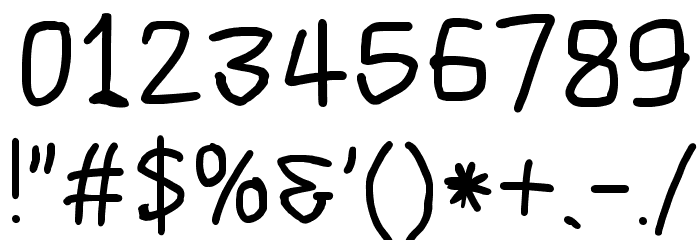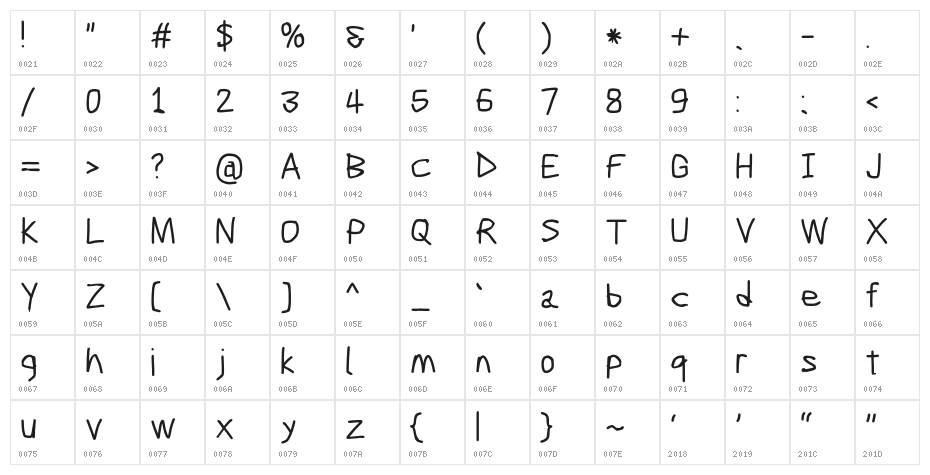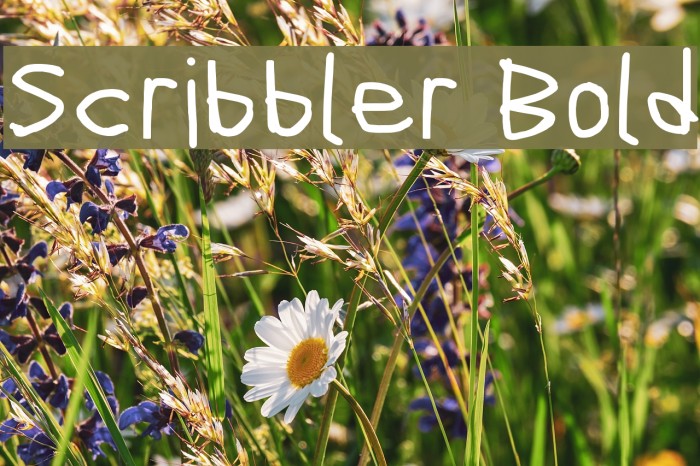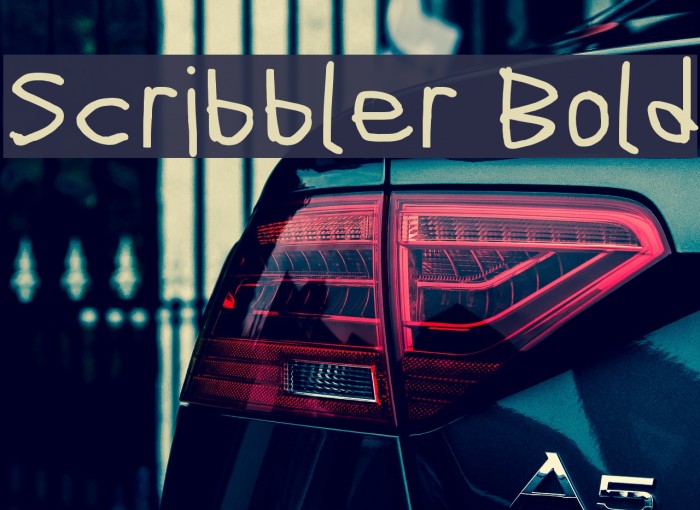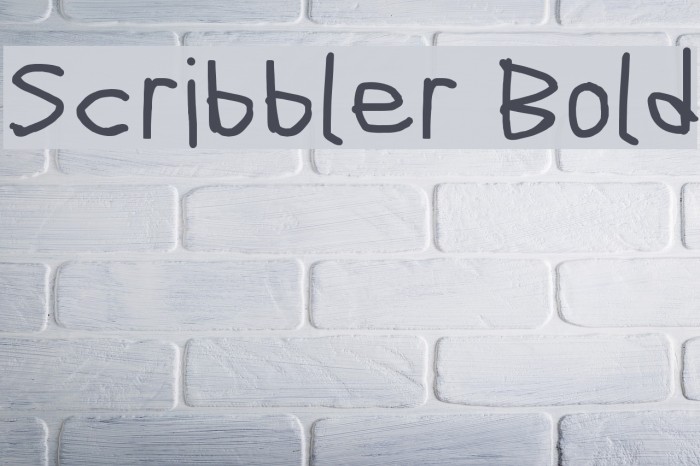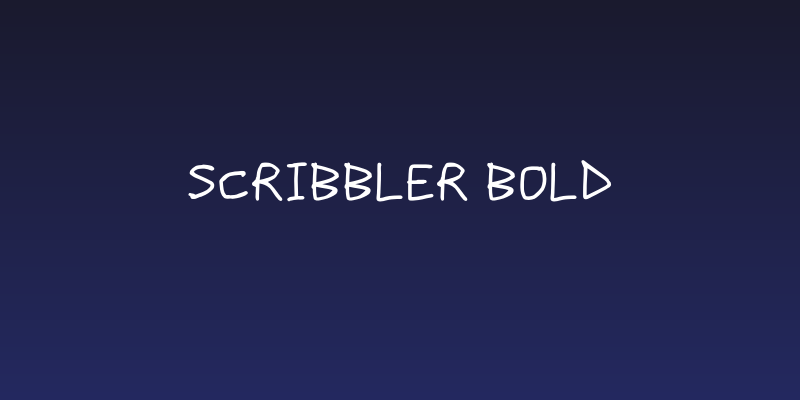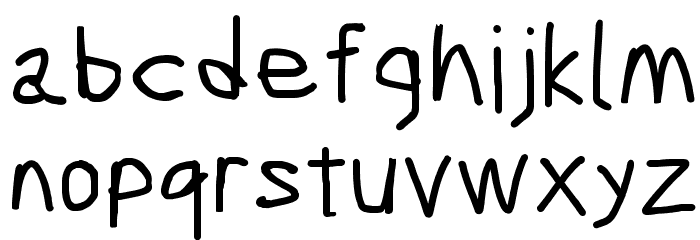
Scribbler Bold Font
Scribbler Bold Description
This font exudes a playful and informal style, reminiscent of handwritten notes with a bold and confident touch. The characters are slightly irregular, adding a personal and casual feel. The uppercase and lowercase letters maintain a consistent flow, while the numerals and special characters are clear and easily distinguishable. The strokes are uniform in thickness, contributing to a cohesive appearance. This font is ideal for projects that require a friendly and approachable aesthetic, such as children's books, casual invitations, or creative branding.
| Proposed Projects | Children's books, casual invitations, creative branding, personal notes. |